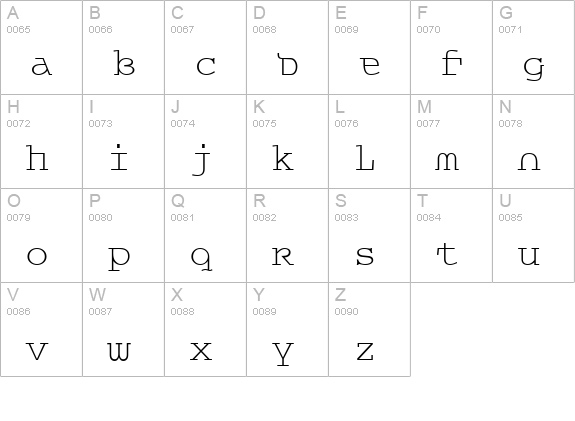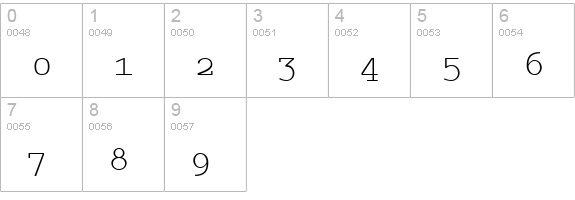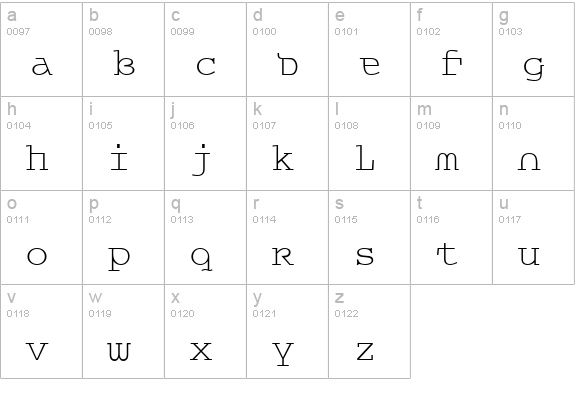
Queer TheoryLight font is a modern, versatile typeface that exudes creativity and uniqueness. Its sleek lines and elegant curves make it perfect for a wide range of design projects, from branding to editorial design. With its subtle yet impactful presence, Queer TheoryLight adds a touch of sophistication to any text. This font is a bold statement of individuality and inclusivity, embodying the principles of queer theory and celebrating diversity in all its forms. Its light weight gives it a delicate and airy feel, while still maintaining a strong presence on the page. Whether you're creating a poster, a logo, or a website, Queer TheoryLight will help your message stand out and make a lasting impression. Best of all, Queer TheoryLight is freely available to download at FontsMarket.com, making it accessible to designers of all backgrounds and budgets. So go ahead, unleash your creativity and express yourself with Queer TheoryLight font today.